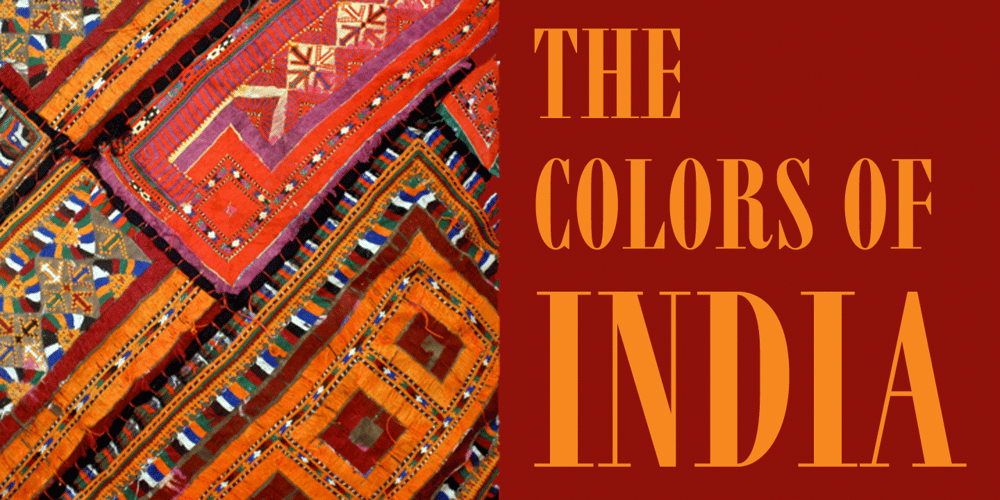
Vincenzo
Vincenzo font
Vincenzo Font Family was designed by published by CastleType. Vincenzo contains 1 styles and family package options. Vincenzo is based on a beautiful condensed typeface from the 1920s or earlier; original designer unknown. This is a “Modern” style with fine slab serifs, vertical stress between thick and thins, and high contrast. What is unique about this design is that the triangular serifs (e.g., E, F, L, T, etc.) do not gradually taper as they join the rest of the letter, as would be the case in Bodoni and similar designs. Uppercase only.